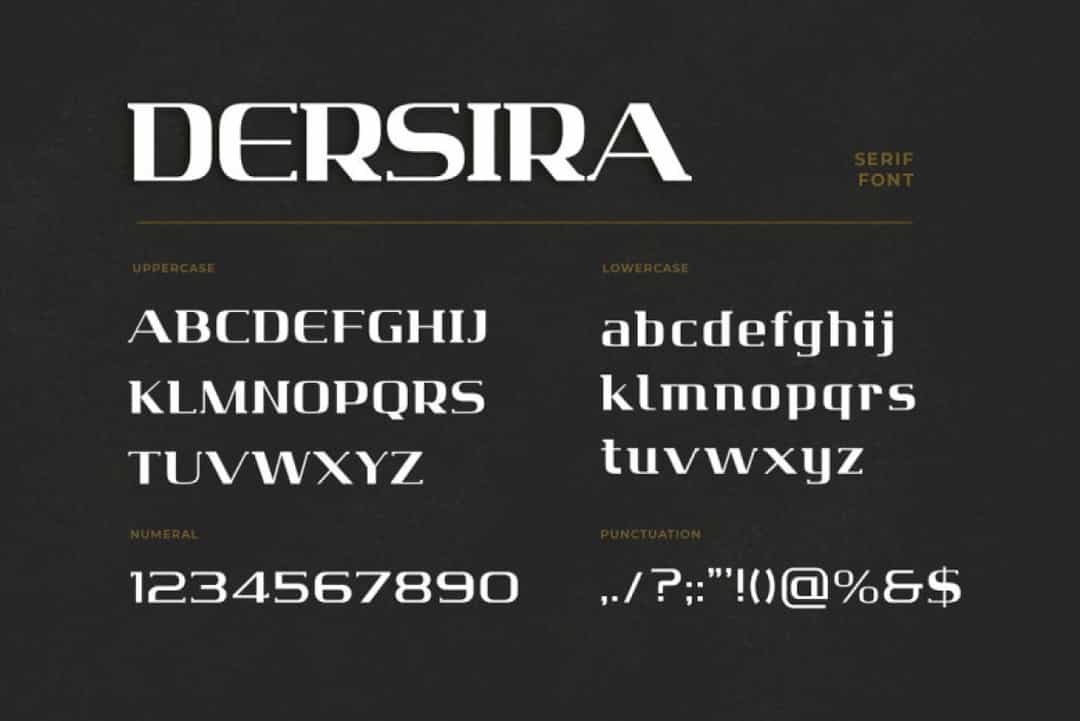
Discover Dersira Font, part of the Serif Basic collection—a versatile and unique font perfect for adding a personal touch to your projects. Download it for free and enjoy crafting designs with style, from invitations to social media posts. This font is available exclusively for personal use, giving you the freedom to create without limits. Unlock your creativity with Dersira Font today!
Dersira can be described as an elegant serif font with a contemporary yet stylish style, suitable for multiple applications such as logo design, signature creation and signature signing for stationery wedding events; typography quotes on book or magazine covers; headers for websites as well as clothing packaging design branding etc.